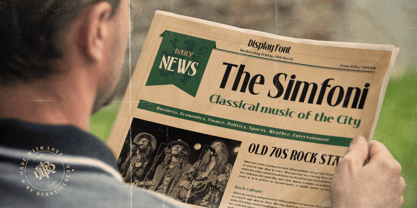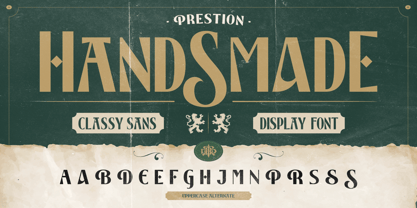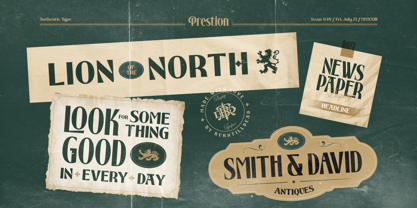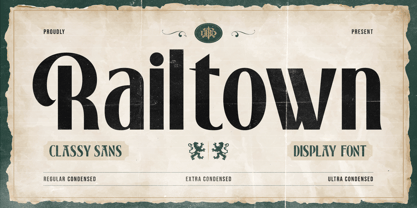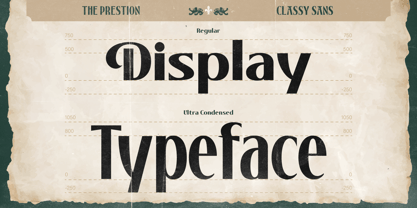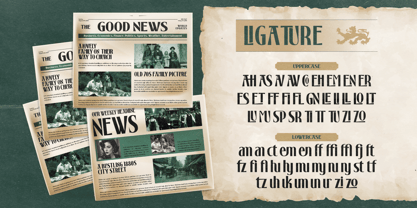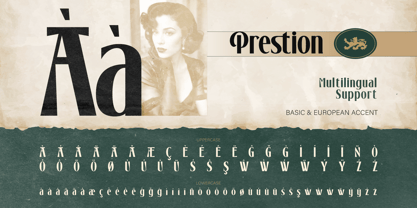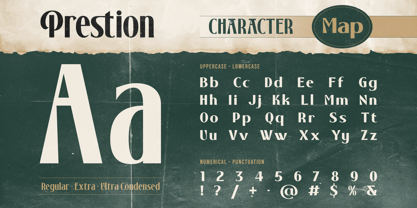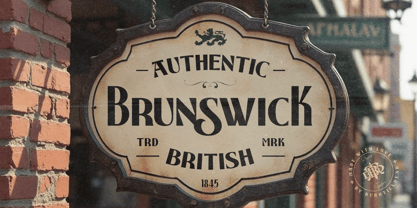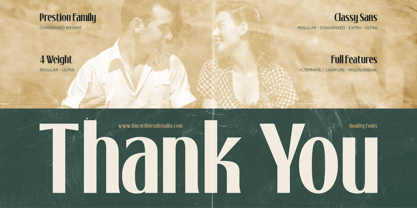
Railtown
The Railtown Font Family was designed by Eric Kurniawan and published by Burntilldead. Railtown contains 4 styles and family package options. More about this family
Railtown is a powerful condensed classy sans display font designed to make a bold statement in limited space. Built with a strong vertical structure and refined curves, Railtown delivers maximum impact while staying elegant and highly readable.
The true strength of Railtown lies in its condensed versatility. From Regular Condensed to Ultra Condensed, each style is carefully crafted to help you fit more text without losing style, perfect for headlines, editorial layouts, and branding that demand attention.
Inspired by vintage newspapers and classic signage, Railtown combines tight spacing, tall proportions, and stylish details to create a striking and professional look. It’s the perfect solution when you need typography that is both space-efficient and visually powerful.
Perfect for: Newspaper & editorial headlines, Posters with limited space, Branding that needs compact typography, Packaging design with tight layout, Vintage & retro style designs, Logos with strong vertical presence, Magazine covers & typography-focused layouts